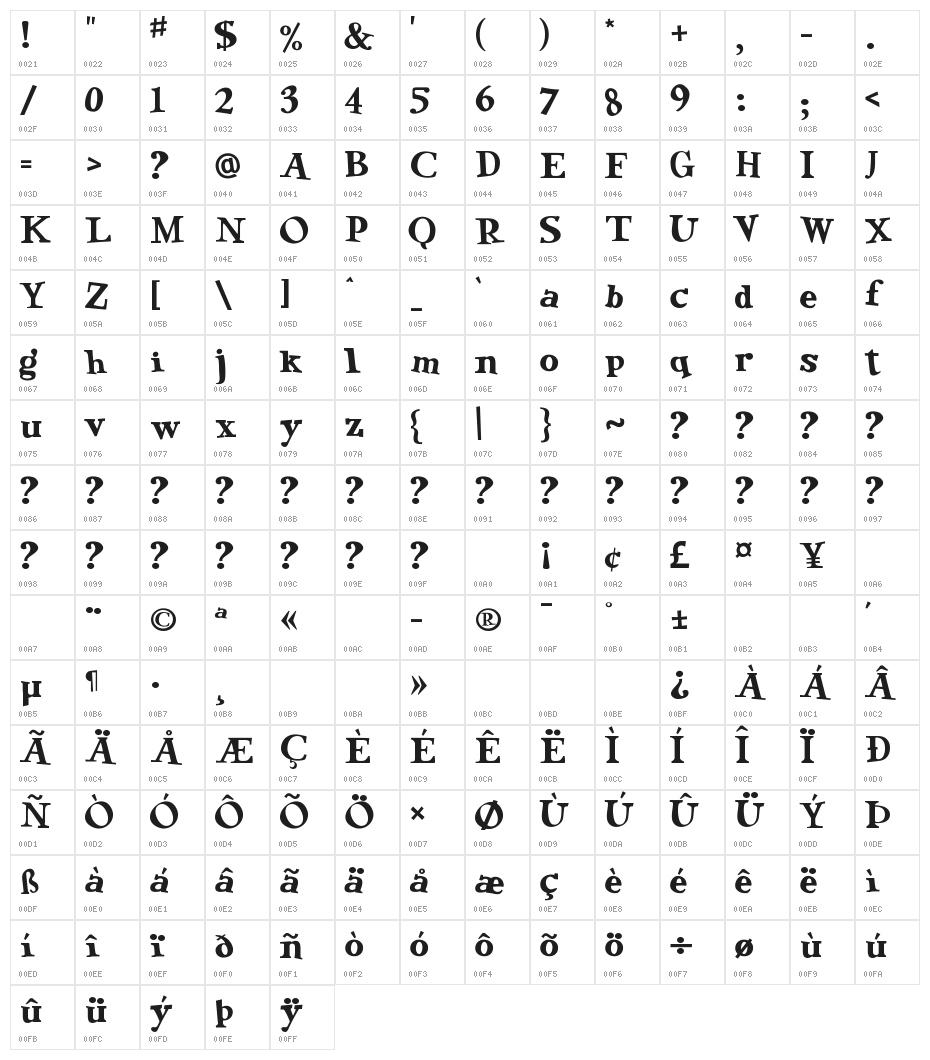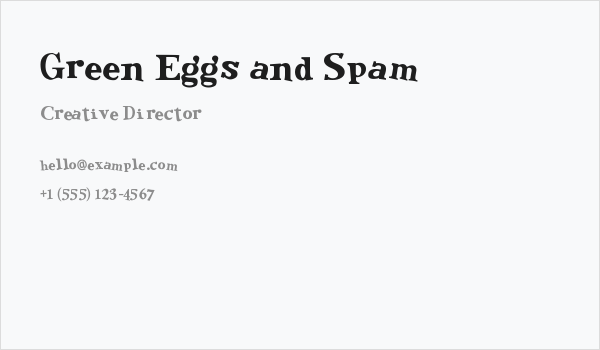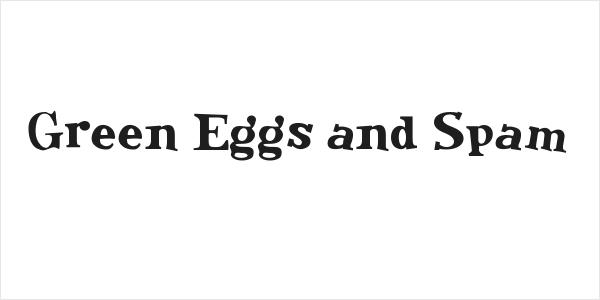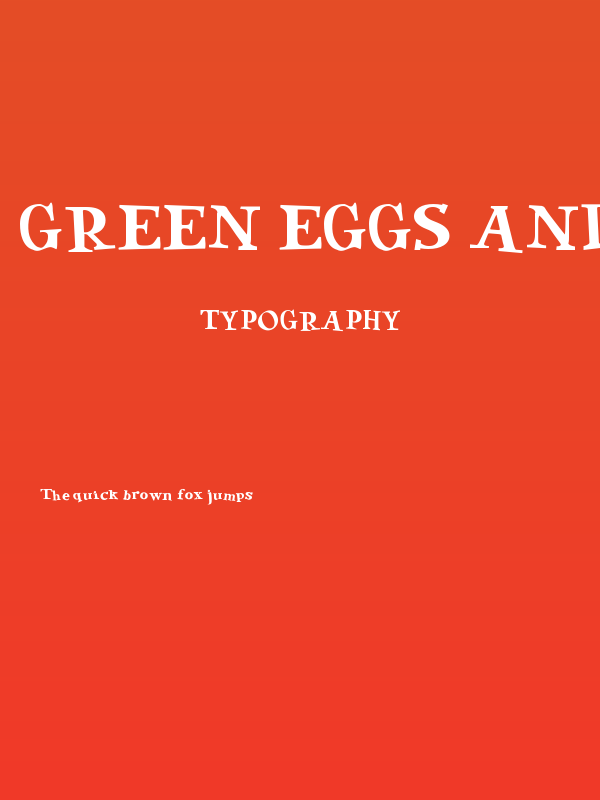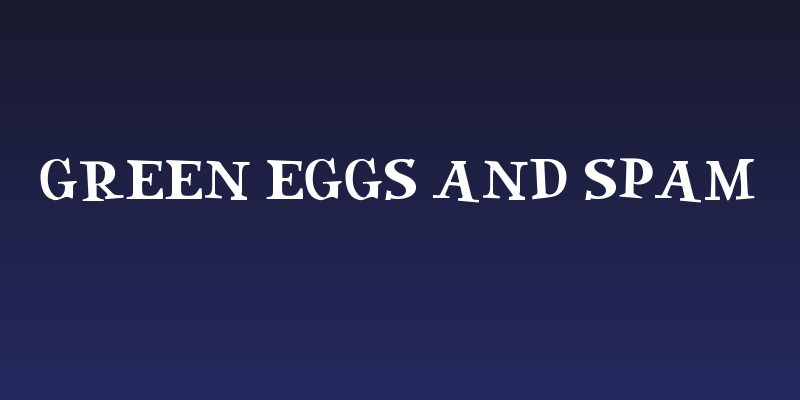
Green Eggs and Spam Font
Green Eggs and Spam Description
This font features a playful and whimsical design, characterized by its uneven and slightly distorted letterforms. The uppercase letters have a bold presence with varying stroke widths, giving them a lively and dynamic appearance. The lowercase letters continue this playful theme, with exaggerated curves and unique shapes that add a sense of movement and energy. The numerals are similarly styled, maintaining the font's quirky and informal aesthetic. Special characters are crafted with the same attention to detail, ensuring consistency across all glyphs. This font's distinctive style makes it stand out, offering a unique visual experience.
| Proposed Projects | Ideal for children's books, playful branding, or creative posters. |